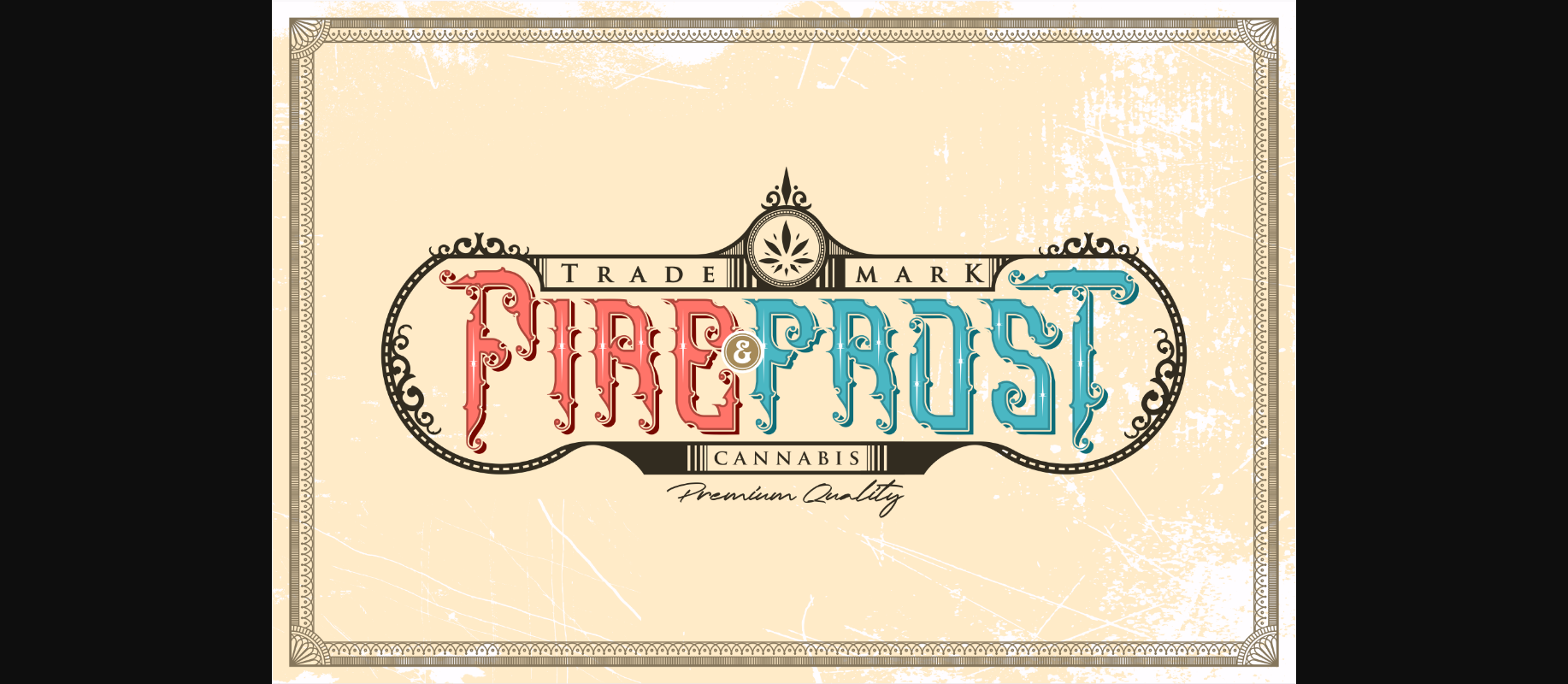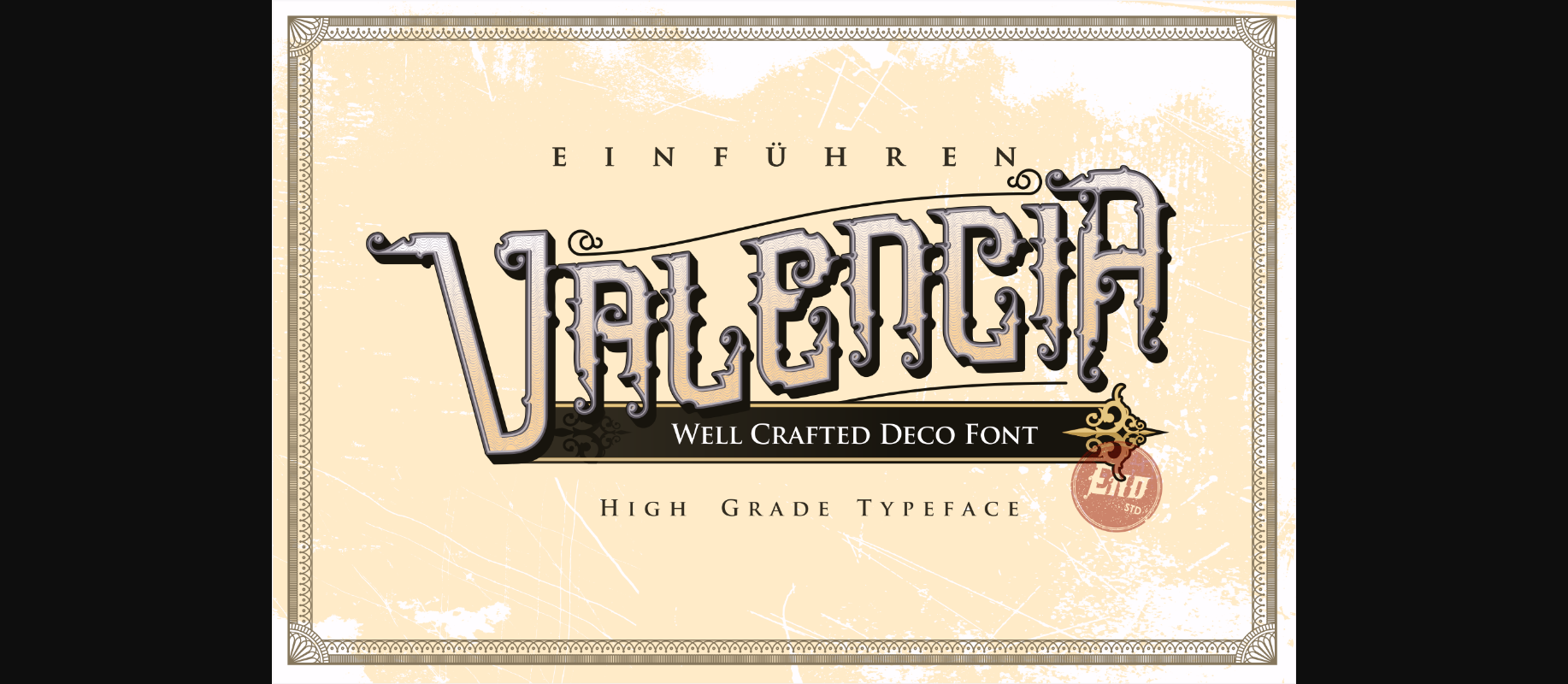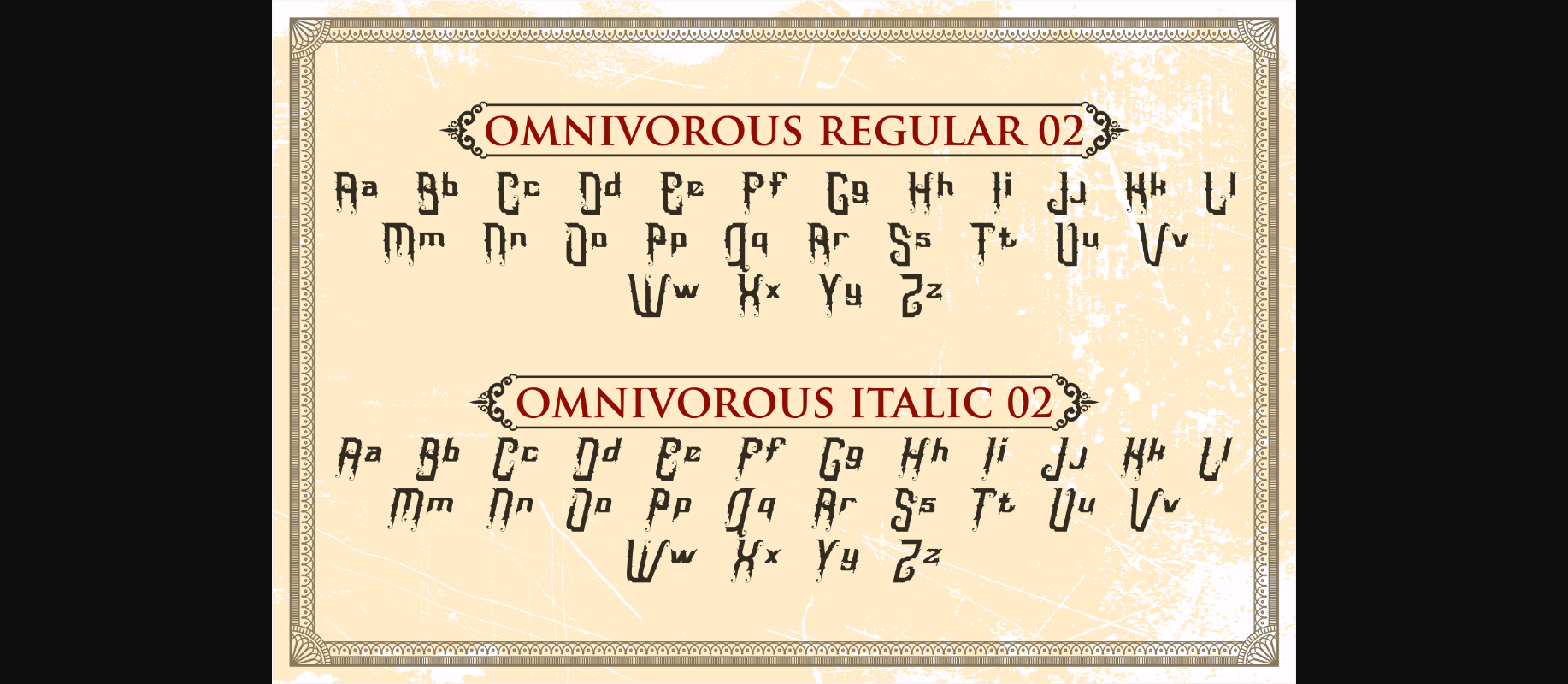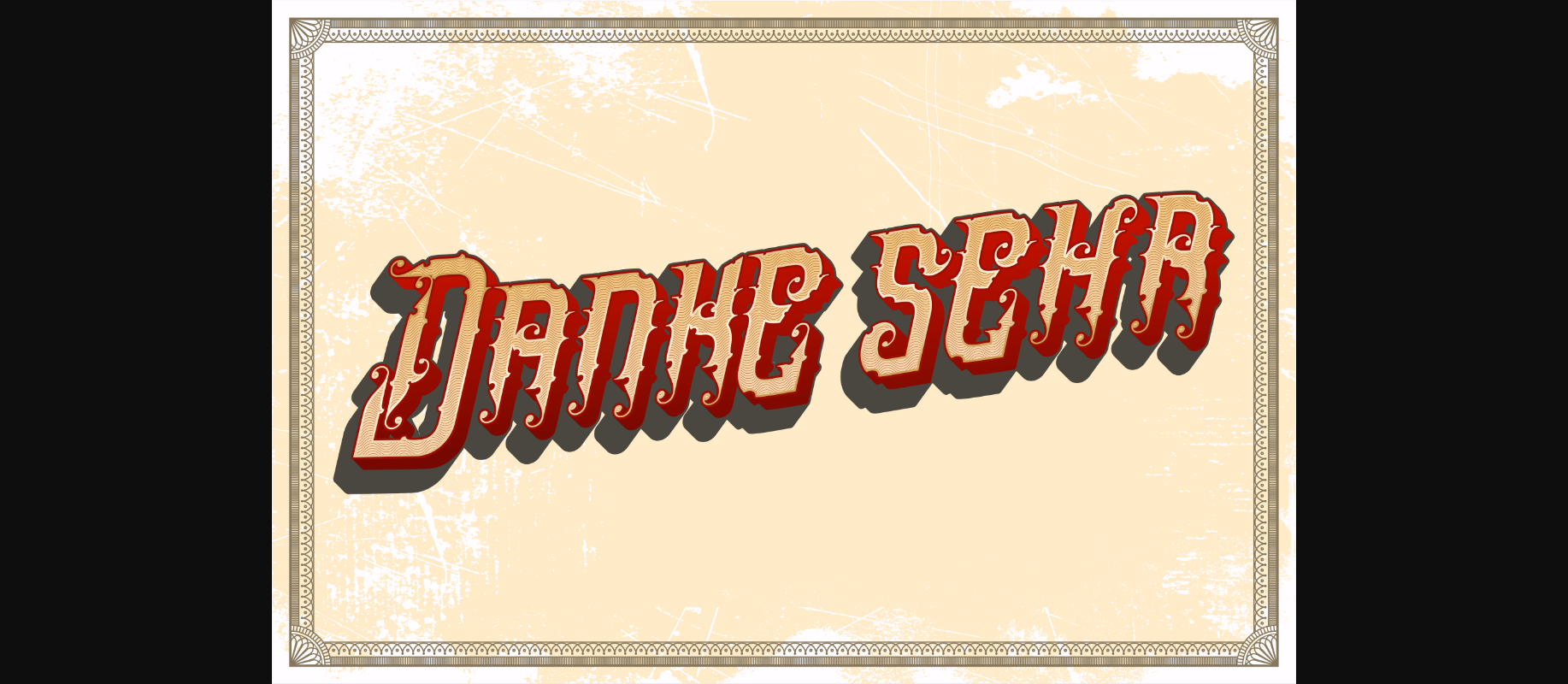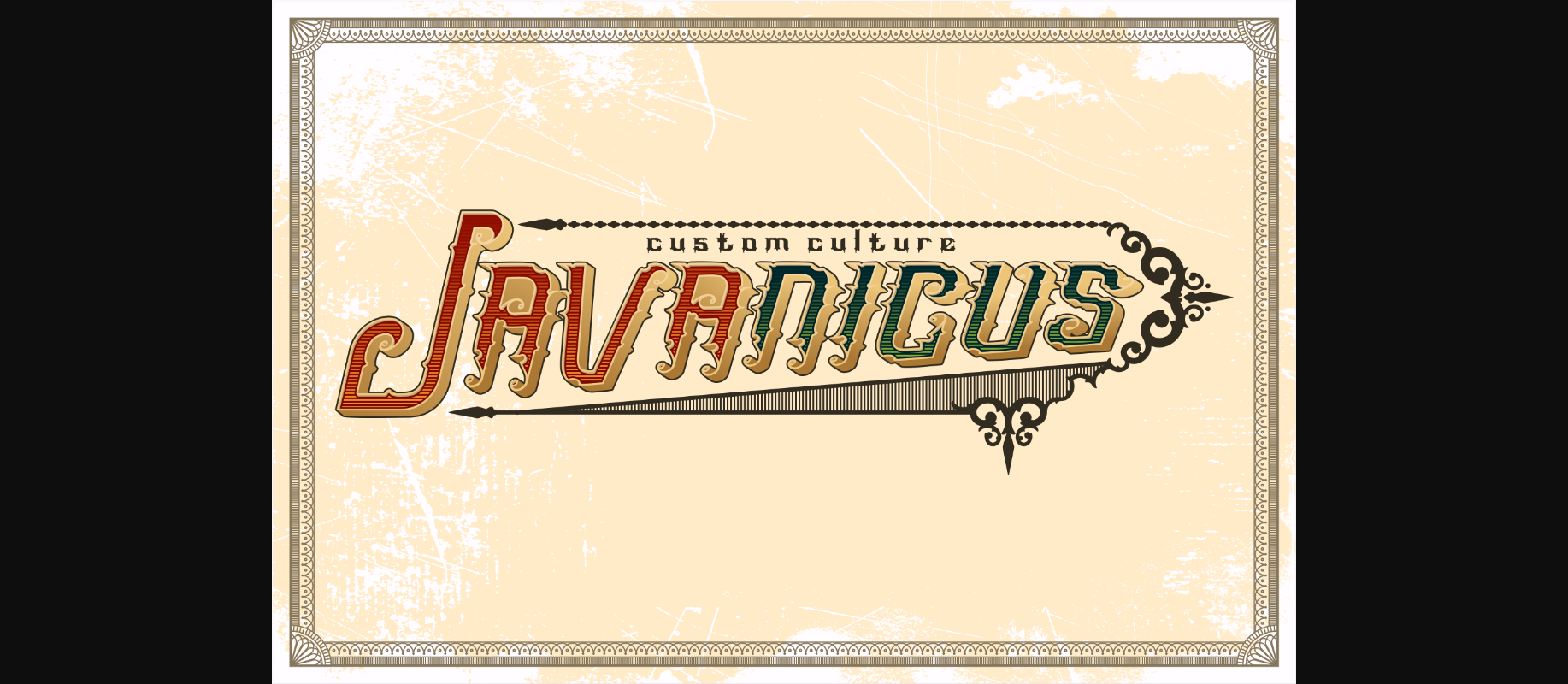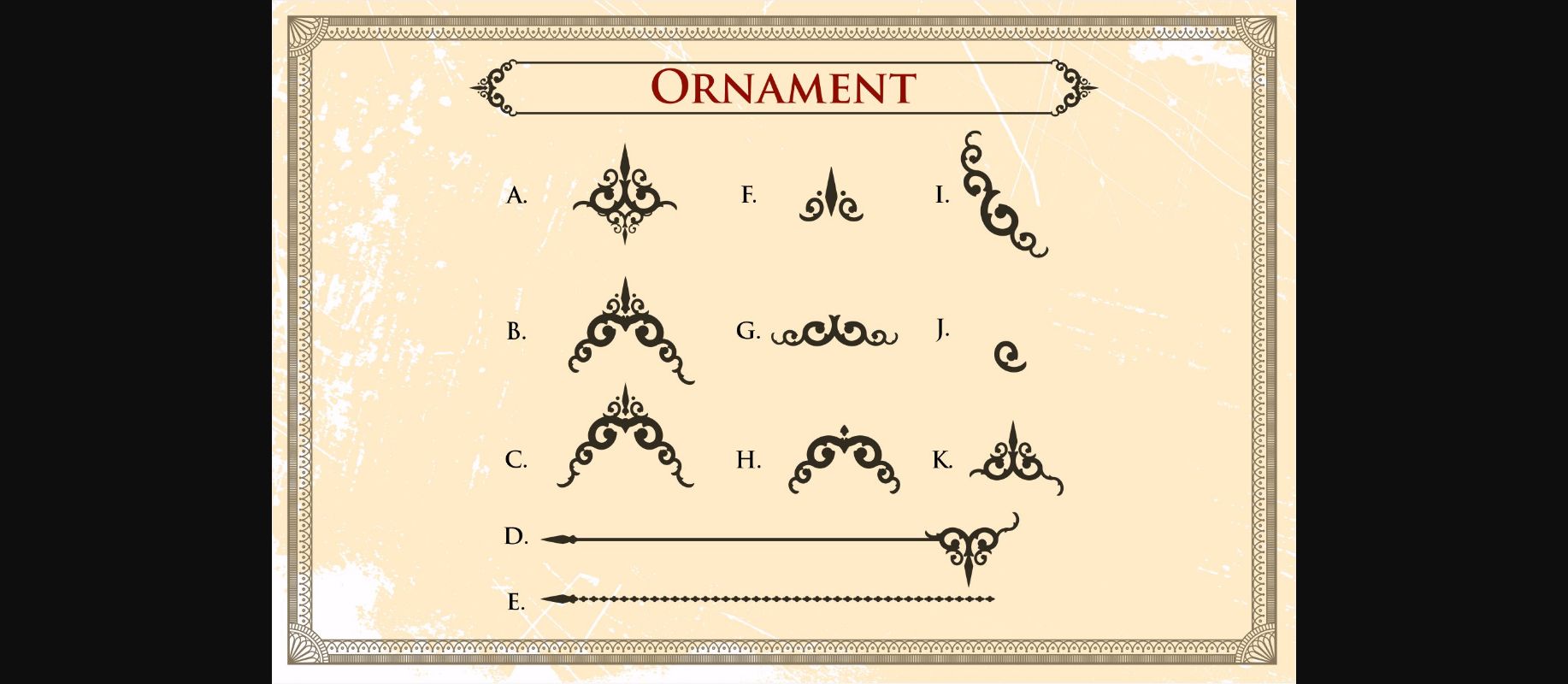
About Omnivorous Font
The Omnivorous is a decorative font inspired by Victorian typefaces. It has a traditional style and comes in 5 variations and an extra bonus file with ornamental’s.